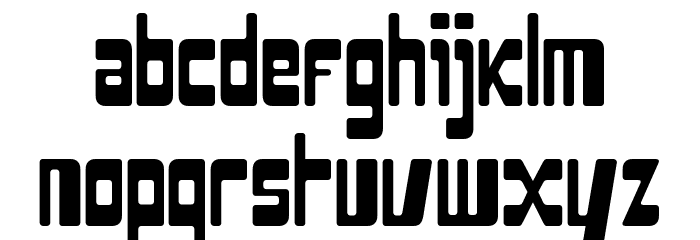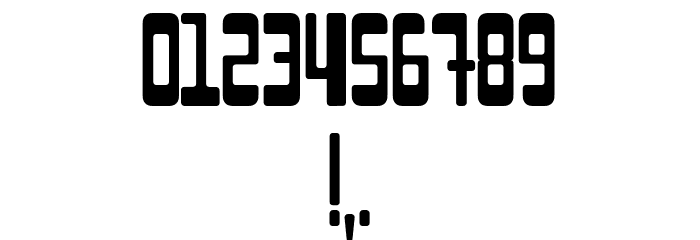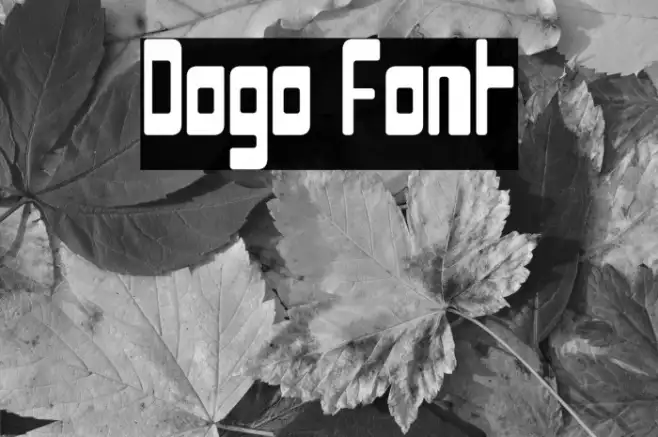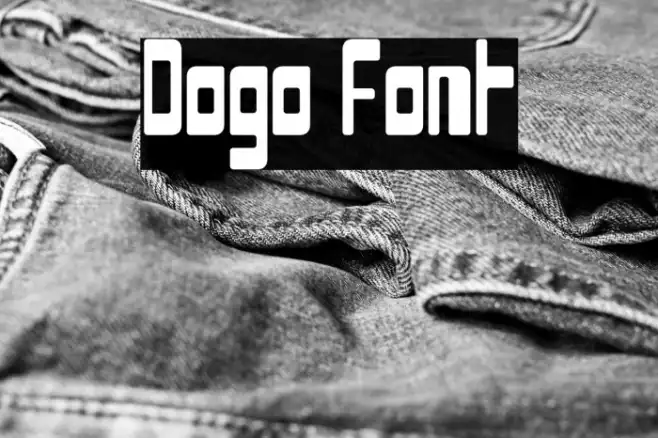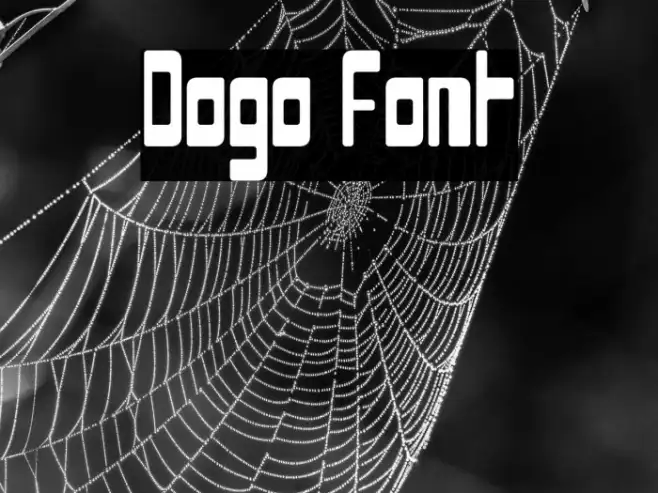
Dogo Font
This font features a bold and modern design with a distinct geometric structure. The characters are uniformly thick, giving them a strong and impactful appearance. The rounded edges soften the overall look, making it approachable yet assertive. The uppercase letters are tall and commanding, while the lowercase letters maintain a consistent style that complements the uppercase. Numbers and special characters follow the same design principles, ensuring a cohesive appearance across all text. The font's unique style makes it stand out, ideal for projects that require a contemporary and bold aesthetic.
A bold, geometric font with rounded edges and a modern style.
- Proposed Projects: Ideal for branding, headlines, posters, and digital media that require a strong visual impact.